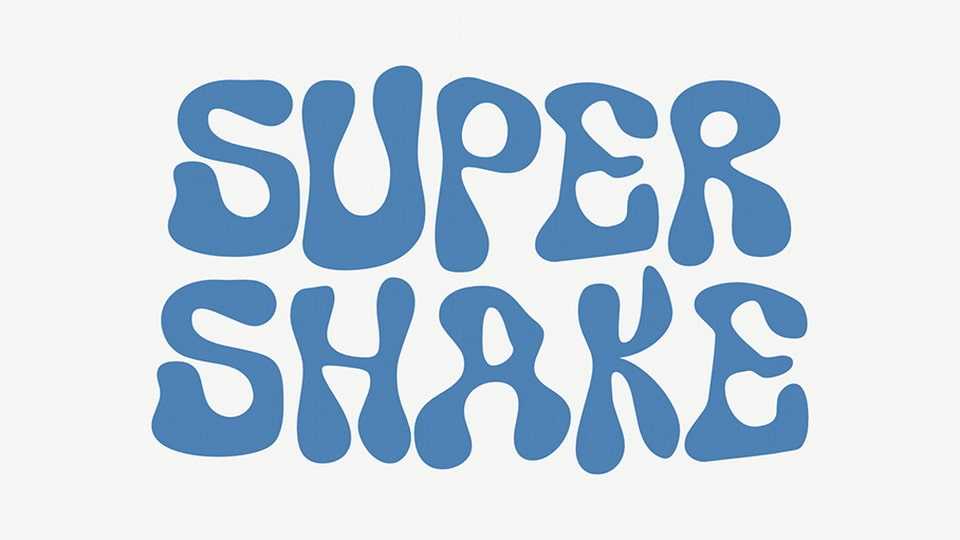
Download Super Shake font, a fun and energetic hand-crafted typeface that dances with its smooth curves and groovy flow and each letter sways with a rhythmic motion.